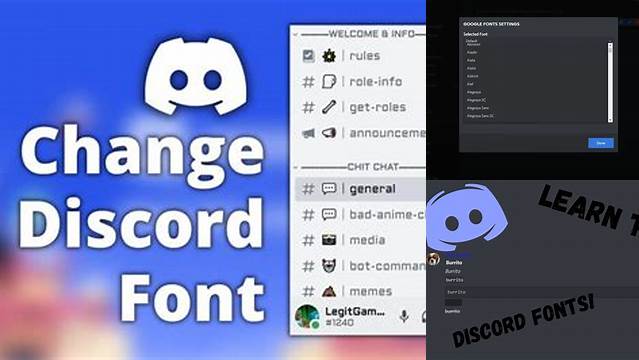
Discord Fonts: How To Change & Customize Your Text
Introduction: Discord Fonts and Why They Matter
Hey guys! Ever wondered how to spice up your Discord messages with different fonts? Well, you're in the right place! Discord, the super popular platform for gamers and communities, offers a bunch of ways to make your text stand out. Using different fonts isn't just about looking cool; it's about highlighting important stuff, adding personality to your messages, and making your server a fun place to hang out. In this guide, we'll dive deep into how you can use various fonts on Discord, even though Discord doesn't have a built-in font selector like Microsoft Word. We’ll explore Markdown formatting, online font generators, and even some tricks for mobile users. So, buckle up and get ready to transform your Discord text game!
Think about it: a well-formatted message can grab attention way more effectively than a plain one. Imagine you're announcing a server event – a bold, eye-catching font can make sure everyone notices the date and time. Or, if you're sharing some exciting news, using italics or bold can add that extra oomph. Plus, let's be honest, a little bit of flair can make your messages more engaging and fun to read. Whether you're a server admin looking to make announcements pop, or just someone who wants to add some personality to their chats, mastering Discord fonts is a valuable skill. We're going to cover everything from the basics of Markdown to some cool online tools that can help you generate unique text styles. We'll also touch on some mobile-specific methods, so you can keep your font game strong no matter where you're chatting from. So, let's jump in and start exploring the world of Discord fonts!
Discord's interface is designed to be clean and user-friendly, which is why it doesn't have a built-in font selection menu. This might seem limiting at first, but it actually opens up a world of creative possibilities. Instead of being confined to a dropdown list of fonts, you can use simple formatting techniques to achieve a wide range of styles. This not only keeps the platform lightweight and efficient but also encourages users to experiment and find their own unique voice. The methods we'll be discussing – Markdown, online font generators, and mobile tricks – are all about working within Discord's framework to express yourself. Each technique offers its own advantages and caters to different needs. For instance, Markdown is perfect for quick, in-line formatting, while online generators can create more elaborate and decorative fonts. And for those who primarily use Discord on their phones, we've got some handy tips to keep your messages looking sharp on the go. By the end of this guide, you'll have a full toolkit of font-related tricks to make your Discord experience truly your own.
Understanding Discord's Text Formatting: Markdown Basics
Okay, let's get down to the nitty-gritty. Discord uses something called Markdown for text formatting. Markdown is a simple way to add emphasis and structure to your text without needing fancy word processors. It might sound intimidating, but trust me, it's super easy to pick up! Basically, you use special characters around your text to make it bold, italic, code
, and more. This is the most fundamental way to change how your text looks on Discord, and it's built right into the platform, so no extra tools needed. Learning Markdown is like unlocking a secret language for Discord – once you know the basics, you can instantly make your messages more engaging and easier to read. We’re going to walk through the most common Markdown tricks step-by-step, so you'll be a pro in no time. From simple things like bolding important words to creating code blocks for sharing snippets, Markdown has you covered. So, let’s dive in and see what this powerful tool can do for your Discord chats!
Markdown is all about using simple characters to tell Discord how to format your text. For example, if you want to make something bold, you just put two asterisks on either side of the word or phrase. Like this: bold. Want to make it italic? Use single asterisks: italic. And if you’re feeling fancy, you can combine them! bold and italic – that’s three asterisks on each side. These basic tricks are the foundation of Discord text formatting, and they’re incredibly versatile. You can use them to highlight key points, add emphasis to your messages, or even just to add a little flair. But Markdown is more than just bold and italics. You can also use it to create strikethroughs (using two tildes: strikethrough), underlines (using two underscores: underline), and even code blocks (using single backticks for inline code: code
or triple backticks for multi-line code blocks). The beauty of Markdown is that it’s lightweight and unobtrusive – the formatting characters disappear when the message is rendered, leaving you with clean, readable text. This makes it perfect for Discord, where clarity and ease of communication are key.
Let's break down some specific Markdown examples you can use right away. Imagine you're organizing a game night on your Discord server. You might want to make the event title bold to grab everyone's attention: Game Night!. Then, you could use italics to emphasize the date and time: Friday at 8 PM. If you have a special announcement, like a new server rule, you could use a combination of bold and italic to really make it stand out. Code blocks are especially useful for sharing technical information or game commands. For example, if you want to share a command for a bot, you can use single backticks: !play song
. And if you need to share a longer piece of code, like a configuration file, you can use triple backticks to create a multi-line code block. This not only preserves the formatting but also makes it much easier for others to read and copy the code. Strikethrough is great for indicating something that’s been canceled or removed, like a scheduled event that’s been postponed: Movie Night. And underlines, while less commonly used, can add another layer of emphasis to your text. By mastering these basic Markdown techniques, you’ll be able to craft clear, engaging, and visually appealing messages on Discord.
Using Online Font Generators for Discord
Now, if you're looking to really step up your font game, online font generators are your best friend. These cool tools let you create text in all sorts of fancy styles that aren't possible with just Markdown. We’re talking about bubble letters, cursive fonts, gothic styles – the sky's the limit! These generators work by using special Unicode characters that look like different fonts. Discord displays these characters, allowing you to use a wide variety of styles in your messages and usernames. This method is perfect for adding a unique touch to your server announcements, profile bios, or even just your regular chats. However, it's worth noting that not all devices and platforms support all Unicode characters, so some fonts might not display correctly for everyone. But don't worry, we'll cover how to make sure your messages look good across the board. Let's explore how these font generators work and how you can use them to make your Discord presence truly stand out!
Online font generators are super easy to use. You just type your text into a box, and the generator spits out the same text in a bunch of different fonts. Then, you can copy and paste the fancy text directly into Discord. It's like magic! There are tons of these generators out there, and they all work pretty much the same way. Some popular ones include LingoJam, Cool Text Generators, and YayText. Each generator offers a slightly different selection of fonts, so it's worth trying a few to find the styles you like best. When you use these generators, you're not actually changing the font in Discord itself. Instead, you're using Unicode characters that are designed to look like different fonts. Unicode is a universal character encoding standard that includes a vast range of symbols and characters, including those that resemble different typefaces. This is why the generated text can appear in various styles, even though Discord doesn't have a built-in font selector. It's a clever workaround that lets you add a lot of visual variety to your Discord communications.
Let's talk about some specific examples of how you can use font generators. Imagine you're creating a welcome message for new members in your Discord server. You could use a fancy cursive font to make the greeting feel more welcoming and personal. Or, if you're announcing a competitive event, like a gaming tournament, you might use a bold, futuristic font to convey excitement and energy. Font generators are also great for creating unique nicknames and profile bios. A stylish nickname can help you stand out in a crowded server, and a well-crafted bio can give other members a sense of your personality. However, it's important to use these fonts judiciously. Too much fancy text can make your messages hard to read, and some fonts might not be legible at all. It's a good idea to stick to one or two special fonts per message and use them to highlight key information or add a touch of flair. Also, keep in mind that some users might be using devices or platforms that don't support all Unicode characters. To ensure your messages are readable for everyone, it's a good practice to use a mix of standard text and generated fonts, so the main content is always clear. By balancing creativity with readability, you can make your Discord messages both visually appealing and accessible.
Discord Fonts on Mobile: Tips and Tricks
For those of you who are Discord power users on your phones, don't worry, we haven't forgotten about you! Using different fonts on Discord mobile is just as easy as on desktop, and we've got some handy tips and tricks to make it seamless. Just like on desktop, you can use Markdown for basic formatting, and online font generators work perfectly on mobile browsers too. But there are also some mobile-specific apps and keyboard tricks that can make your font game even stronger. Whether you're chatting on the go or managing your server from your phone, these techniques will help you keep your messages looking sharp and stylish. We'll explore the best ways to use fonts on Discord mobile, so you can stay connected and express yourself, no matter where you are. Let's dive in and see how you can make the most of Discord's font options on your mobile device!
The first thing to remember is that all the Markdown tricks we talked about earlier work just the same on mobile. You can use asterisks for italics, double asterisks for bold, and so on, right from your phone's keyboard. This is the simplest and most reliable way to format your text on Discord mobile, and it's built right into the platform. But what about those fancy fonts you can generate online? Well, the good news is that online font generators work perfectly on mobile browsers. You can use the same websites we mentioned before, like LingoJam or Cool Text Generators, on your phone's browser. Just type your text, choose a font, and copy and paste it into your Discord chat. The process is exactly the same as on desktop, which makes it super convenient. However, typing long messages in a font generator can be a bit tedious on a mobile keyboard. That's where some mobile-specific tools come in handy. There are apps and custom keyboards that can make generating fancy text much easier on your phone.
One of the most popular ways to use different fonts on Discord mobile is by using custom keyboard apps. These apps often come with built-in font styles, so you can switch fonts directly from your keyboard without having to copy and paste from a website. Some of these apps also offer other cool features, like stickers, GIFs, and emoji shortcuts, which can enhance your Discord experience even further. When choosing a custom keyboard app, it's important to consider a few factors. First, make sure the app is reputable and has good reviews. You'll be giving the app access to your keystrokes, so you want to choose one that's secure and trustworthy. Second, look for an app that offers a variety of font styles and customization options. Some apps only have a few basic fonts, while others have a wide selection to choose from. Finally, consider the app's ease of use. A good keyboard app should be intuitive and easy to navigate, so you can quickly switch between fonts and other features. With the right keyboard app, you can make your Discord messages on mobile just as stylish as on desktop. Remember to balance creativity with readability, and you'll be a font master in no time!
Troubleshooting Font Issues on Discord
Okay, let's talk about what to do when things don't go quite as planned. Sometimes, you might run into issues with fonts not displaying correctly on Discord. This can be frustrating, but don't worry, we've got some troubleshooting tips to help you out. The most common problem is that some Unicode characters used by font generators might not be supported on all devices or platforms. This means that a font that looks great on your computer might appear as boxes or question marks to someone else. We'll cover how to check for compatibility and what to do if you encounter this issue. We'll also discuss other potential problems, like Markdown formatting errors and font display settings. By understanding these common issues and how to fix them, you can ensure that your Discord messages look great for everyone. So, let's get to it and make sure your font game stays strong!
The first thing to check when you encounter font issues is compatibility. As we mentioned earlier, some Unicode characters might not be supported on all devices or platforms. This is especially true for older devices or operating systems. If you're using a fancy font generated by an online tool, it's a good idea to test it out with a few different people to make sure it displays correctly for them. Ask your friends to check the message on their computers, phones, and tablets, and see if the font looks the same across the board. If someone is seeing boxes or question marks instead of the font, it means their device doesn't support those specific Unicode characters. In this case, it's best to use a more widely supported font or stick to standard Markdown formatting. Another common issue is Markdown formatting errors. If you accidentally misplace an asterisk or a backtick, your formatting might not work as expected. For example, if you forget to close a bold tag with two asterisks, the rest of your message might appear in bold. To avoid these errors, double-check your Markdown syntax before sending your message. Pay close attention to the placement of special characters, and make sure they're paired correctly.
Another potential issue is font display settings. Discord has a setting that allows users to override the default fonts used in the app. If someone has enabled this setting and chosen a different font, they might not see your fancy fonts correctly. However, this is a less common issue, as most users stick with the default settings. If you're still having trouble, it's worth checking your own font display settings in Discord to make sure you haven't accidentally changed anything. You can find these settings in the Appearance section of the Discord settings menu. Finally, if you've tried all these troubleshooting steps and you're still having issues, it's possible that there's a bug or a temporary glitch in Discord. In this case, the best thing to do is to wait a while and try again later. You can also check the Discord status page to see if there are any known issues or outages. By systematically checking for compatibility, Markdown errors, and font display settings, you can usually resolve most font issues on Discord. And if all else fails, remember that clear and readable text is always more important than fancy fonts. So, focus on getting your message across, and don't let font issues get in the way of your Discord fun!
Conclusion: Level Up Your Discord Communication with Fonts
So, there you have it! You're now equipped with all the knowledge you need to use different fonts on Discord like a pro. We've covered everything from basic Markdown formatting to online font generators and mobile tips and tricks. Using different fonts on Discord isn't just about making your messages look cool; it's about enhancing your communication, adding personality, and making your server a more engaging place to be. Whether you're highlighting important information, creating eye-catching announcements, or just adding a touch of flair to your chats, fonts can make a big difference. Remember to balance creativity with readability, and always consider your audience when choosing fonts. By mastering these techniques, you can level up your Discord communication and make your messages truly stand out. Now go forth and experiment with fonts, and have fun making your Discord experience your own!
Throughout this guide, we've emphasized the importance of clear communication. While fancy fonts can add a lot of visual appeal, the primary goal should always be to convey your message effectively. Think of fonts as a tool to enhance your message, not to overshadow it. Use bold and italics to emphasize key points, and use special fonts sparingly to highlight specific words or phrases. Avoid using too many different fonts in the same message, as this can make it look cluttered and confusing. And always make sure that your fonts are legible and easy to read. A beautifully designed message is useless if no one can understand it. By keeping these principles in mind, you can use fonts to create messages that are both visually appealing and highly effective. Remember, the best font is the one that helps you communicate your message clearly and engagingly.
Finally, remember that the Discord community is all about creativity and self-expression. Using different fonts is just one way to show off your personality and make your mark on the platform. Don't be afraid to experiment with different styles and techniques, and find what works best for you. Try out different font generators, explore new Markdown tricks, and see what kind of creative messages you can come up with. And don't forget to share your knowledge with others! If you discover a cool new font or a handy tip, pass it along to your friends and fellow Discord users. By sharing our knowledge and creativity, we can make the Discord community an even more vibrant and engaging place. So, go ahead and unleash your inner font artist, and let your creativity shine on Discord!